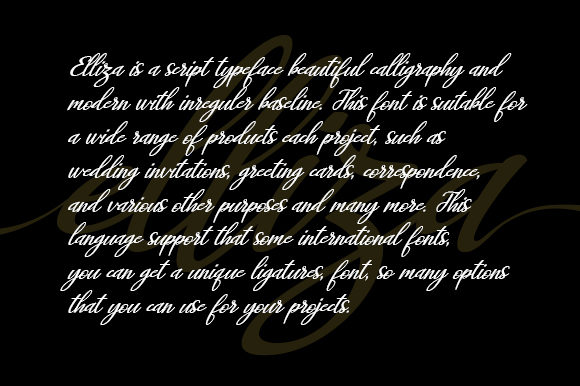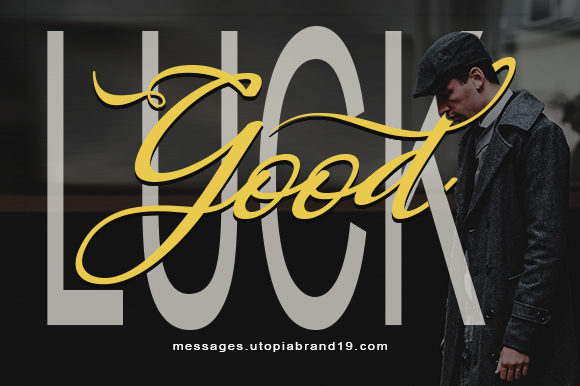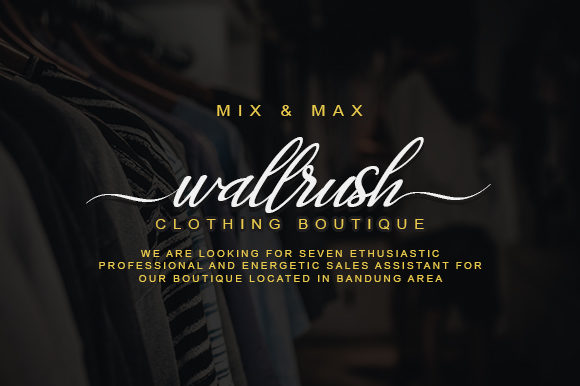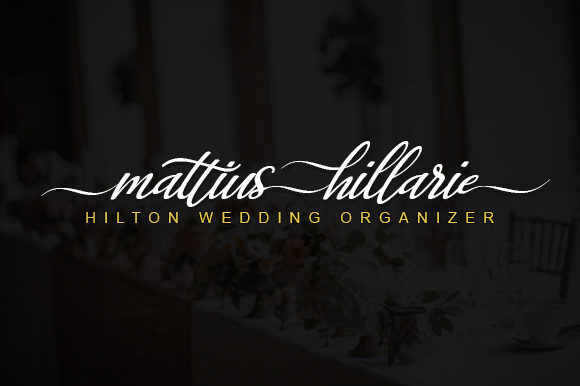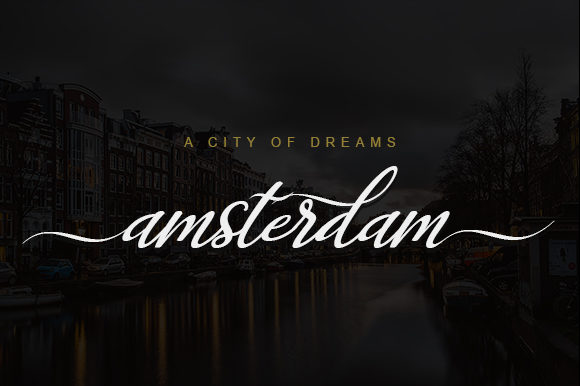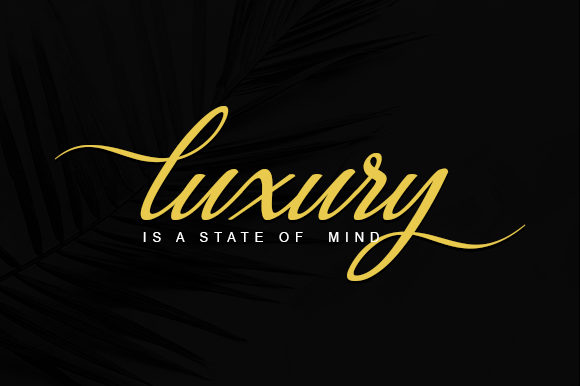
Discover the Magic of Elliza Script Font
There’s nothing quite like the rush of creativity that comes with designing a new project. You’re browsing through font collections, searching for that perfect combination of style and personality to bring your vision to life. And then, you stumble upon it – a font that makes your heart skip a beat. For many designers, that font is Elliza Script Font, a stunning and handwritten font with a cool twist that adds a charming and elegant feel to any design project.
Whether you’re working on a wedding invitation, a logo, or a social media campaign, Elliza Script Font is the perfect choice to elevate your design and make it truly stand out. Its unique blend of sophistication and whimsy makes it a valuable addition to any designer’s toolkit, and its versatility means it can be used in a wide range of projects and applications.
Elliza Script Font Key Features
- Font Style: Elegant, cursive script font ideal for creative projects, invitations, and wedding designs.
- Character Set: Supports a wide range of languages, including Latin, Cyrillic, and Greek alphabets.
- Unique Characteristics: Features a flowing, handwritten feel with subtle flair and flourishes, adding a touch of sophistication to any design.
Elliza Script Font Review
I recently had the chance to work with the Elliza Script Font, and I must say it’s a mixed bag. Here are my honest thoughts:
- The Elliza Script Font has a beautiful, elegant feel to it. It’s perfect for creating a sophisticated and professional look.
- The font is highly customizable, allowing you to adjust the spacing, size, and style to suit your needs.
- The script style is smooth and flowing, making it easy to read and aesthetically pleasing.
- The font may not be suitable for use in small text sizes, as the letters can become difficult to read.
- The script style can be overwhelming in certain contexts, such as in large blocks of text.
- The font may require additional styling to work well with certain color schemes.
Overall, I think the Elliza Script Font is a great choice for projects where you want to add a touch of elegance and sophistication. However, it may not be the best fit for every project, and it’s worth considering its limitations before making a decision.
Elliza Script Font: A Practical Application Guide
Tips for Getting the Most Out of Elliza Script Font
Use Elliza Script Font for titles, headings, and other text elements that require a touch of elegance and sophistication.
Pair Elliza Script Font with other fonts to create a visually appealing contrast.
Experiment with different font sizes and colors to achieve the desired effect.
Elliza Script Font is ideal for:
Brand logos and identity
Alternatives to Elliza Script Font
Great Vibes Font is a beautiful, elegant script font perfect for creating a sophisticated and luxurious feel in your designs. It’s ideal for use in invitations, wedding stationery, and high-end branding materials.
Comparison to Elliza Script Font: Great Vibes Font has a more refined and polished look, making it suitable for formal occasions. Elliza Script Font, on the other hand, has a more playful and whimsical feel.
Pacifico Font
Pacifico Font is a modern script font with a relaxed, beachy vibe. It’s perfect for use in travel and lifestyle branding, as well as in designs that require a carefree and laid-back feel.
Q: What is the recommended font size and line spacing for optimal readability with the Elliza Script Font?
For optimal readability, we recommend using the Elliza Script Font between 14pt and 24pt, with a line spacing of at least 1.5 times the font size. This will ensure the text is legible and visually appealing.